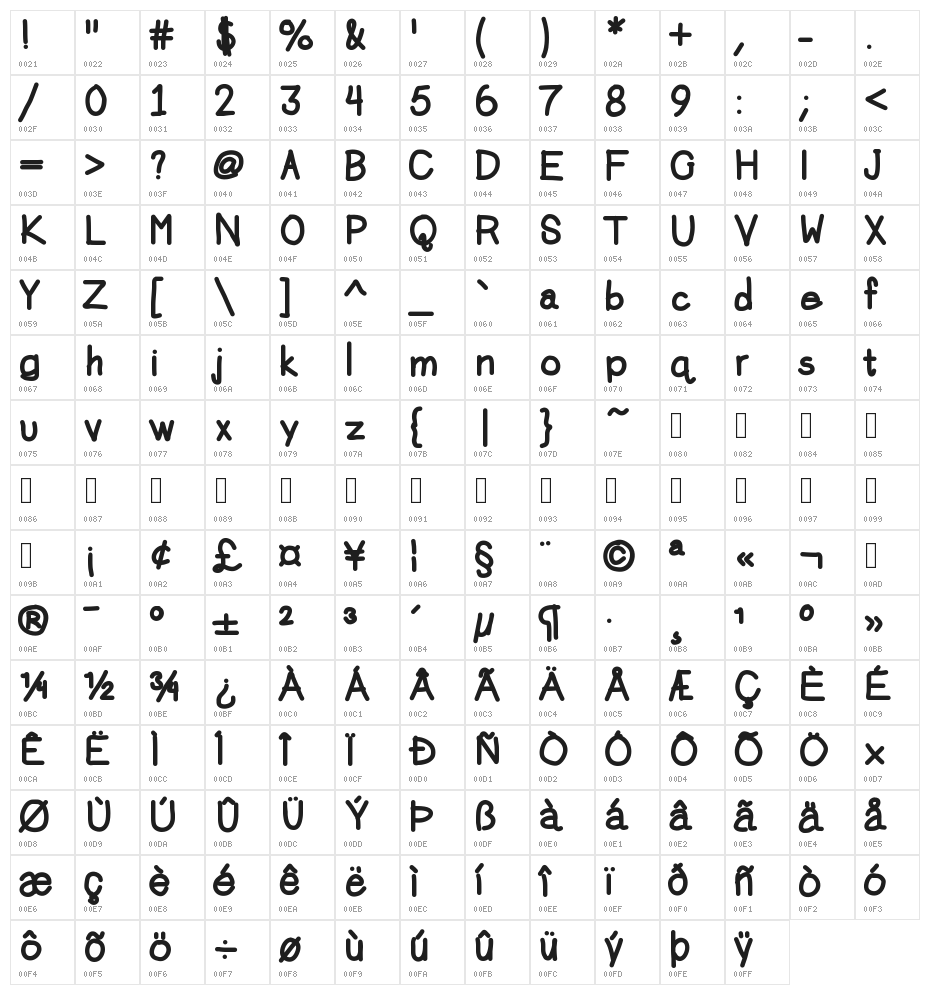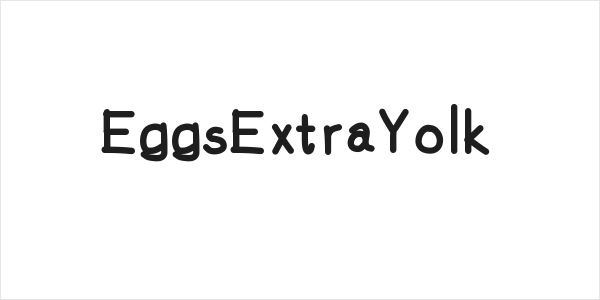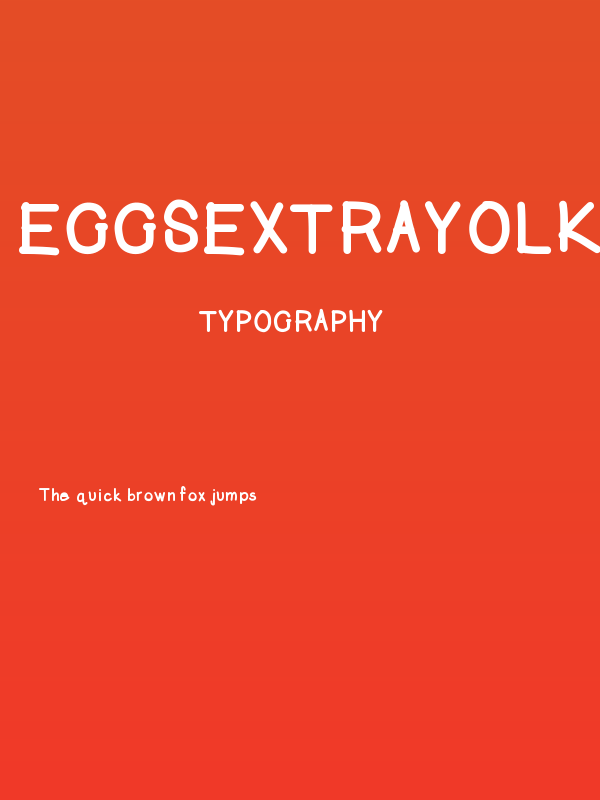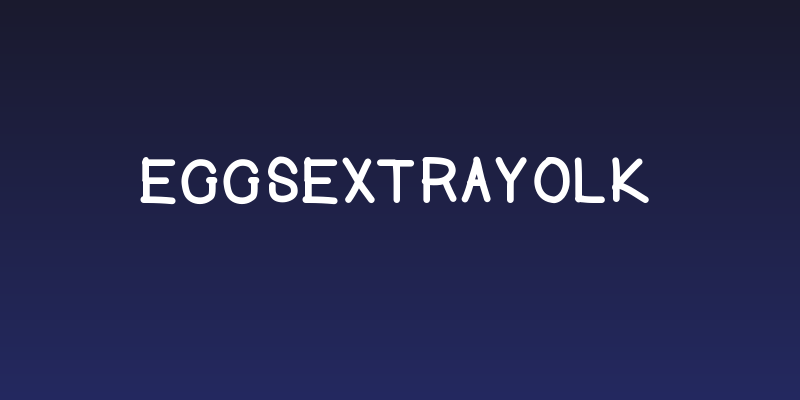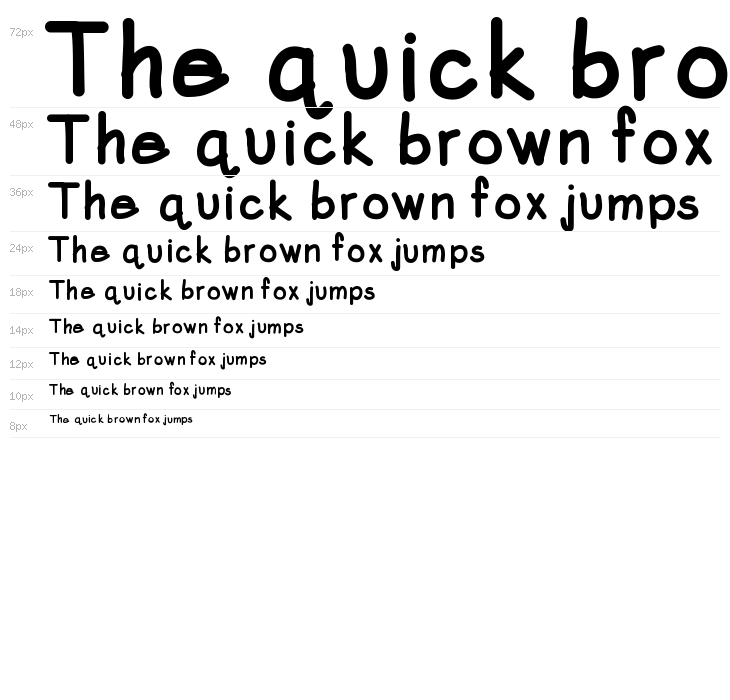
EggsExtraYolk Font
EggsExtraYolk Description
This playful and rounded font exudes a friendly and approachable vibe, characterized by its smooth curves and slightly irregular shapes. The letters have a hand-drawn quality, giving them a whimsical and informal appearance. The uppercase and lowercase letters maintain a consistent style, with a slight variation in stroke thickness that adds to the font's charm. The numerals and special characters are crafted with the same playful spirit, making them perfect for creative and casual designs. The overall look is both modern and fun, suitable for a variety of applications where a lighthearted touch is desired.
| Overall Style | Playful, Informal |
| Use Case | Headlines, Logos, Casual Text |
| Proposed Projects | Ideal for children's books, playful branding, casual invitations, and creative social media graphics. |